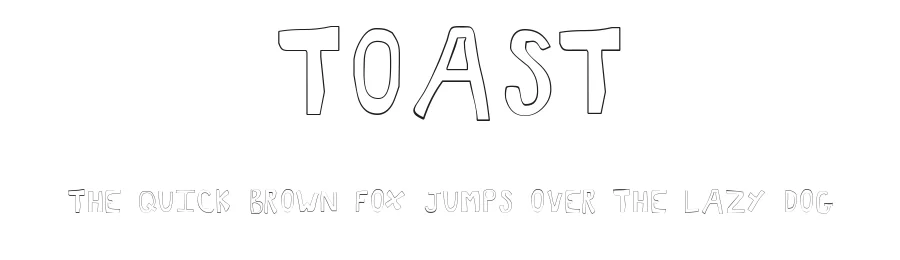
About Dot.com Font
Dot.com is a decorative font designed by Iconian Fonts. It includes 101 glyphs, a regular weight, TTF (TrueType) format, and 107 languages. Dot.com is free to download; check the license details on this page before commercial use. Decorative fonts like Dot.com work best for logos, posters, packaging, and standout headlines.
Dot.com Font is a decorative font that shines as a display or heading face. Pair it with a clean sans-serif or serif font for body text β the contrast creates a clear hierarchy while the two styles stay balanced and easy to read.
Dot.com Font
Dot.com Font is a decorative typeface by Iconian Fonts, ideal for logos, invitations, branding, and creative projects.